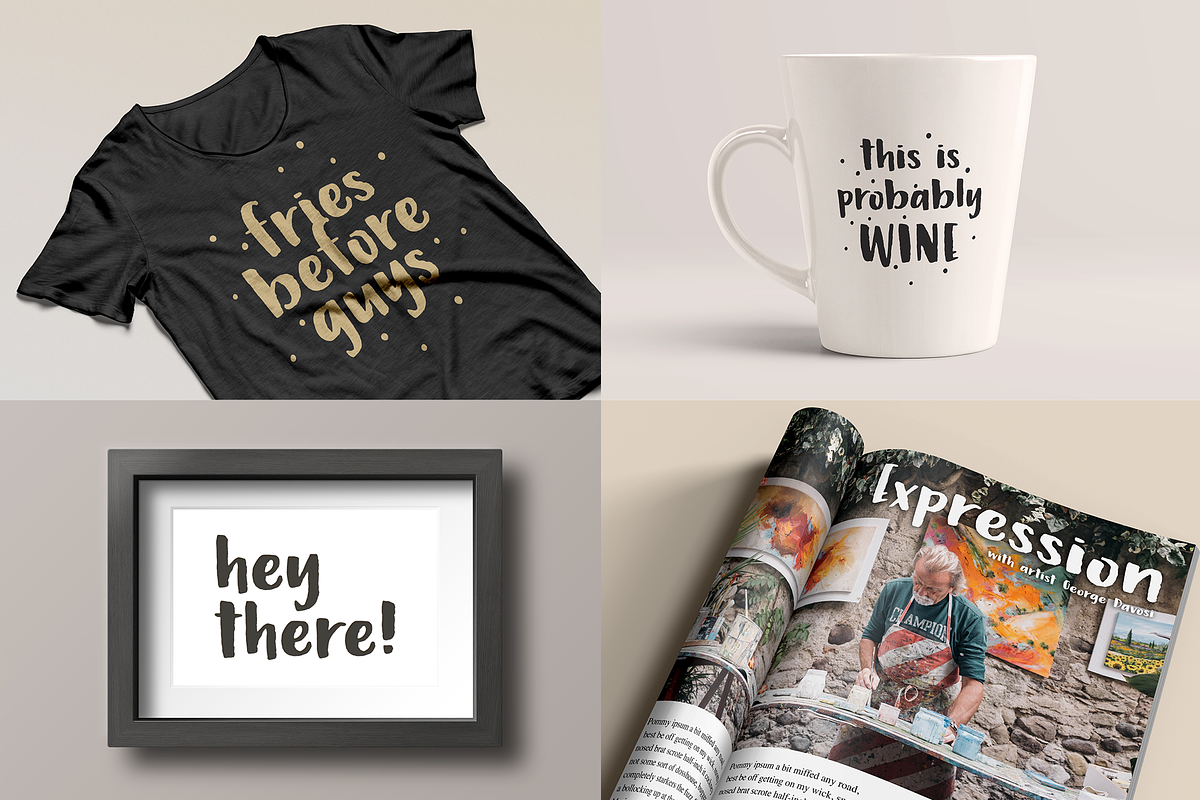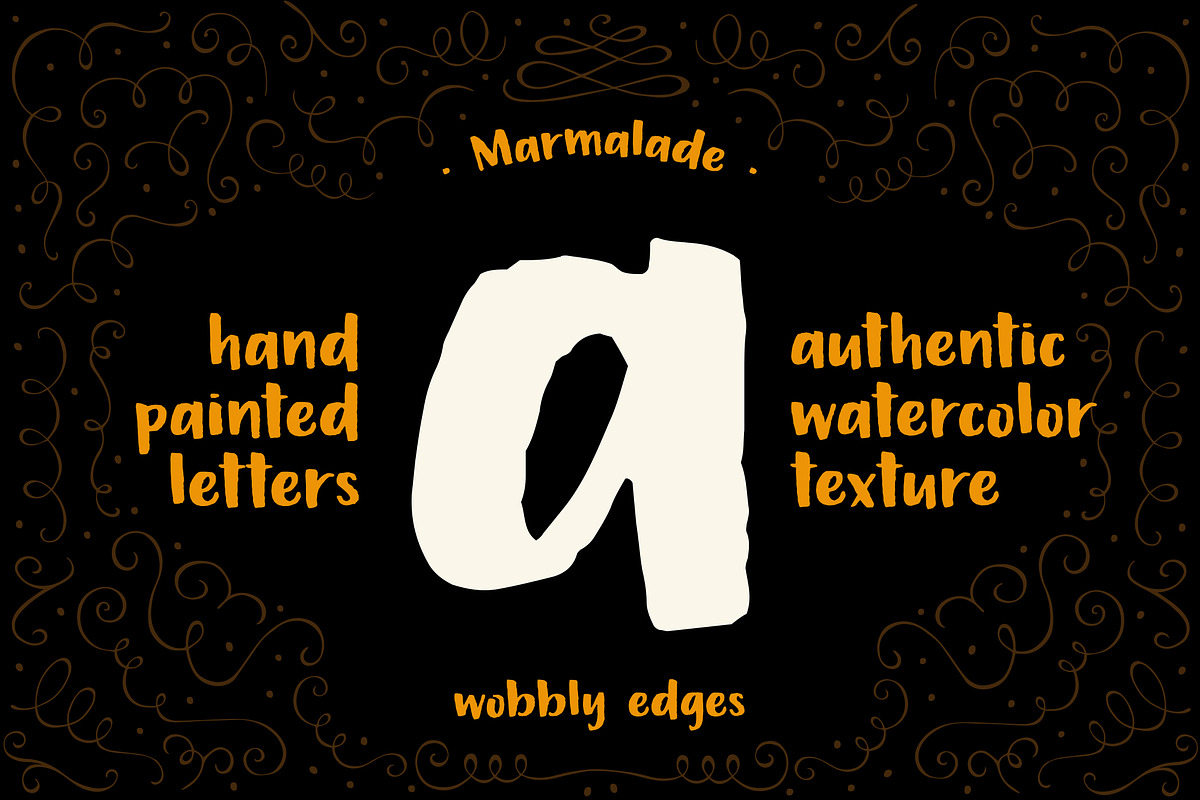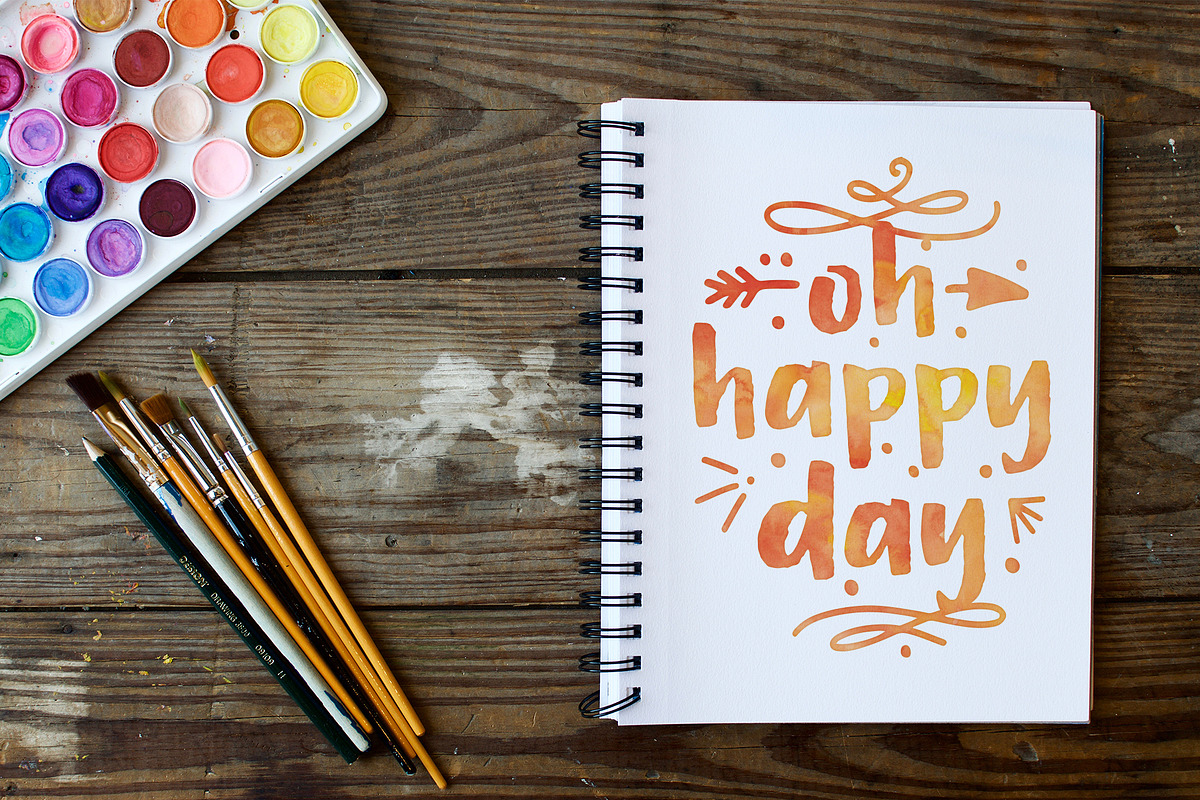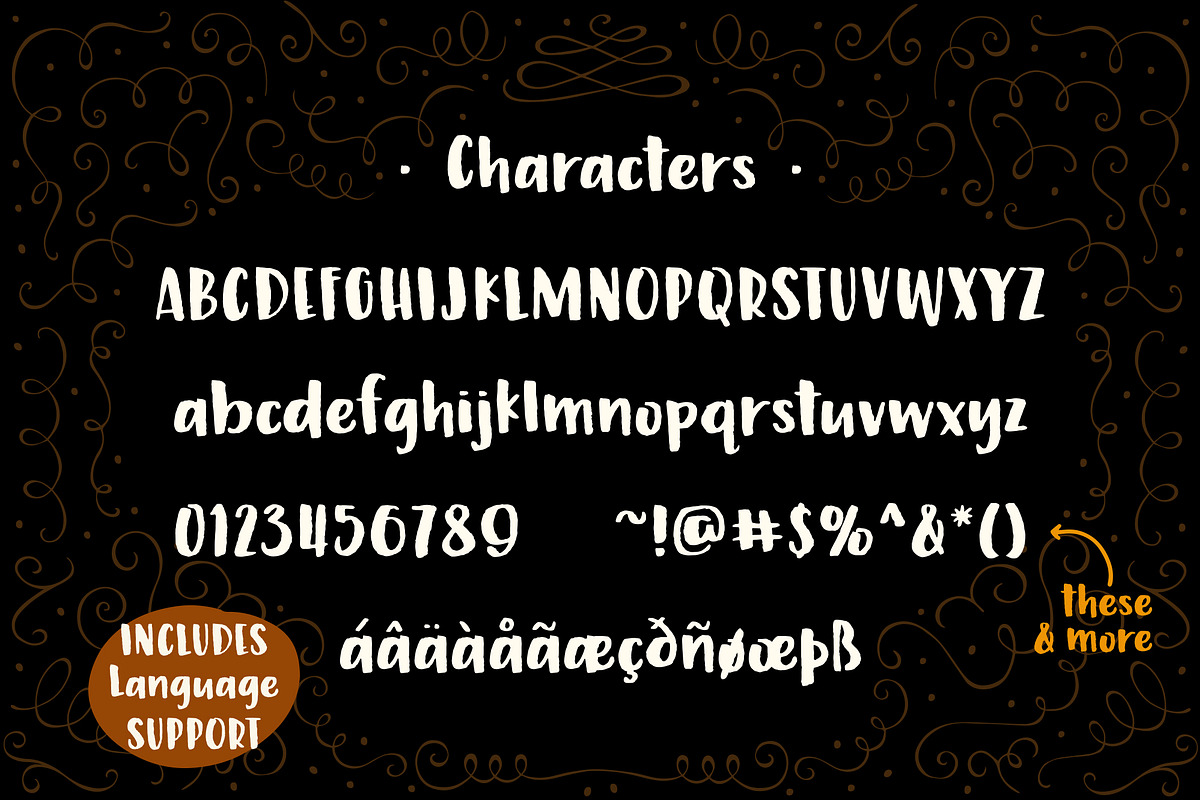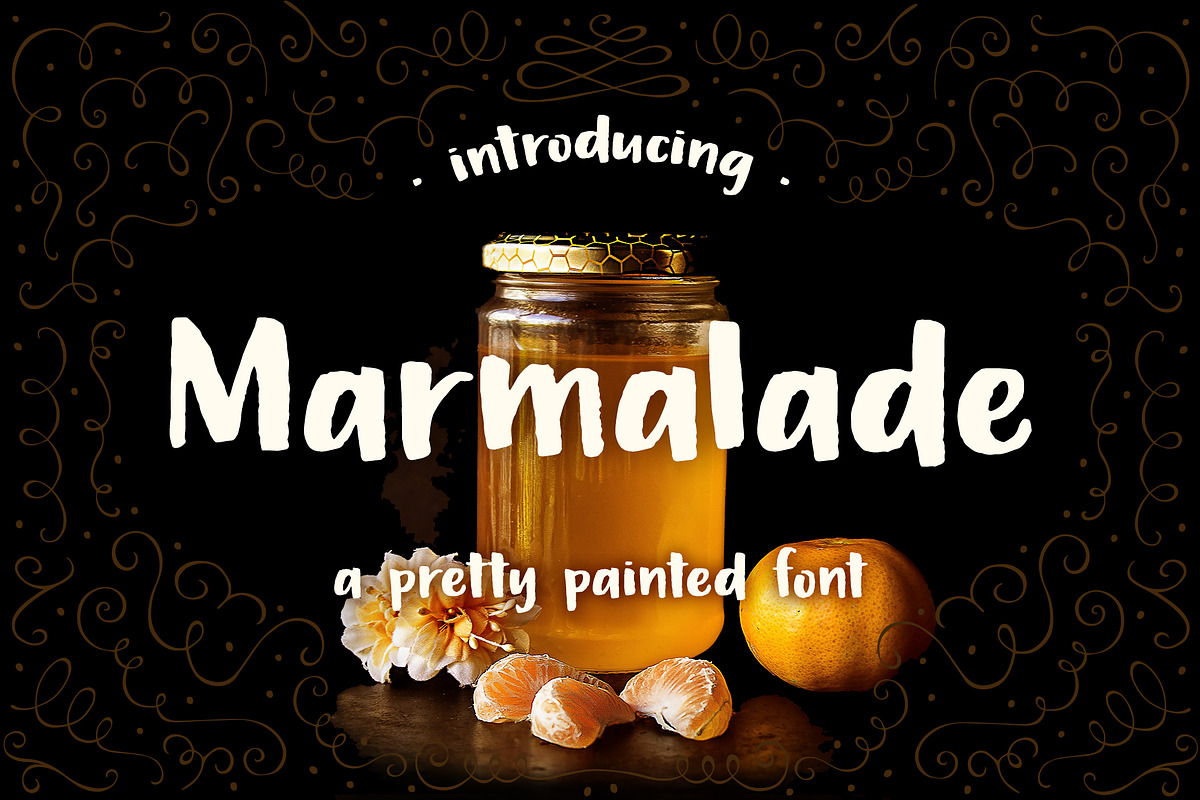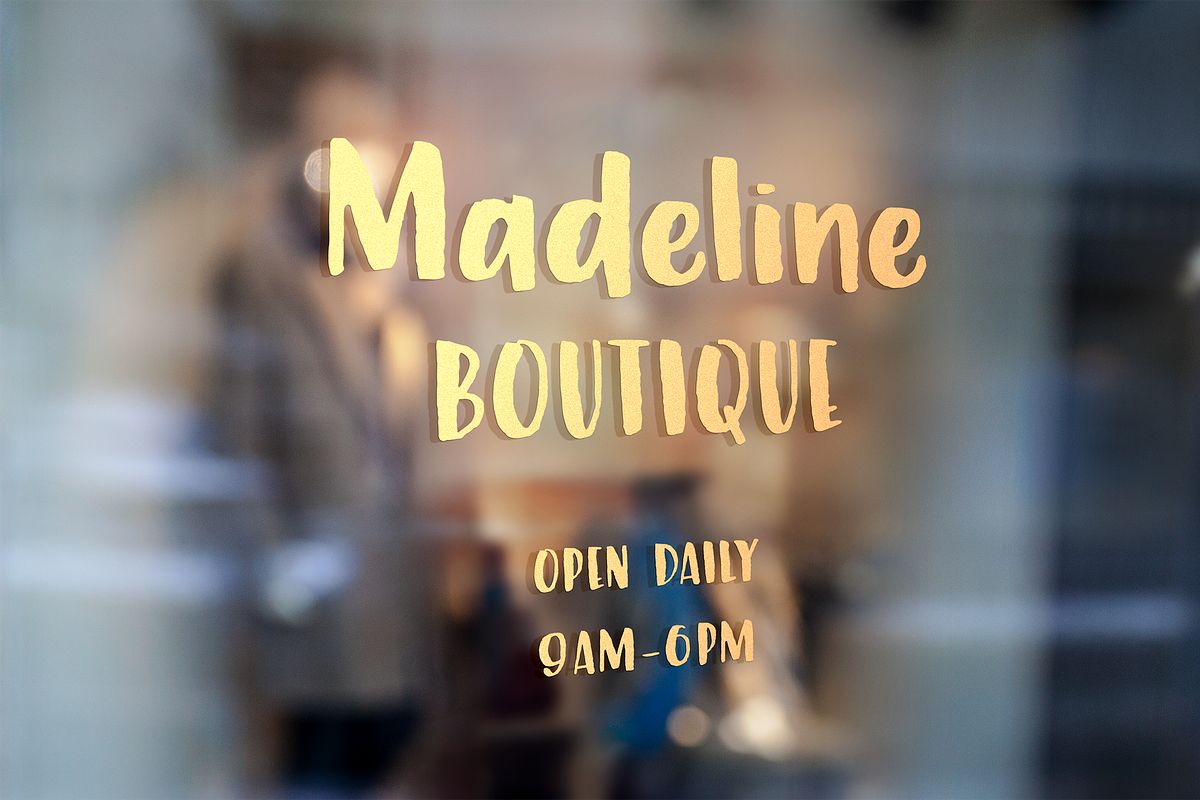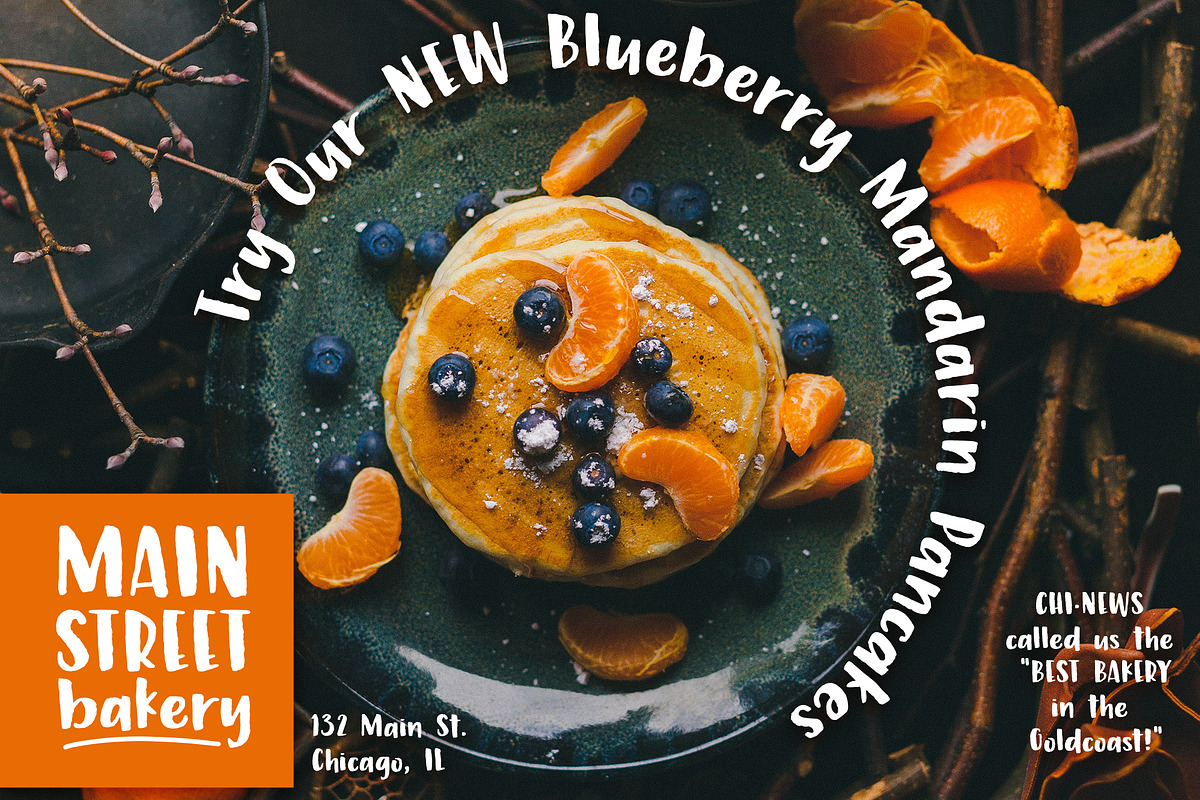
Marmalade, a hand painted font
Marmalade is a hand-painted sans serif font with a soft watercolor texture and an easygoing, organic style. It’s perfect for branding, invitations, packaging, quotes, and any design that needs a gentle, artistic feel.
With rough edges and natural brush strokes, Marmalade brings a creative, handcrafted look to your work. Whether you're designing for weddings, small business branding, or stationery, this font adds a sweet, personal touch.
Great for: Branding, invitations, quotes, packaging, stationery, feminine designs